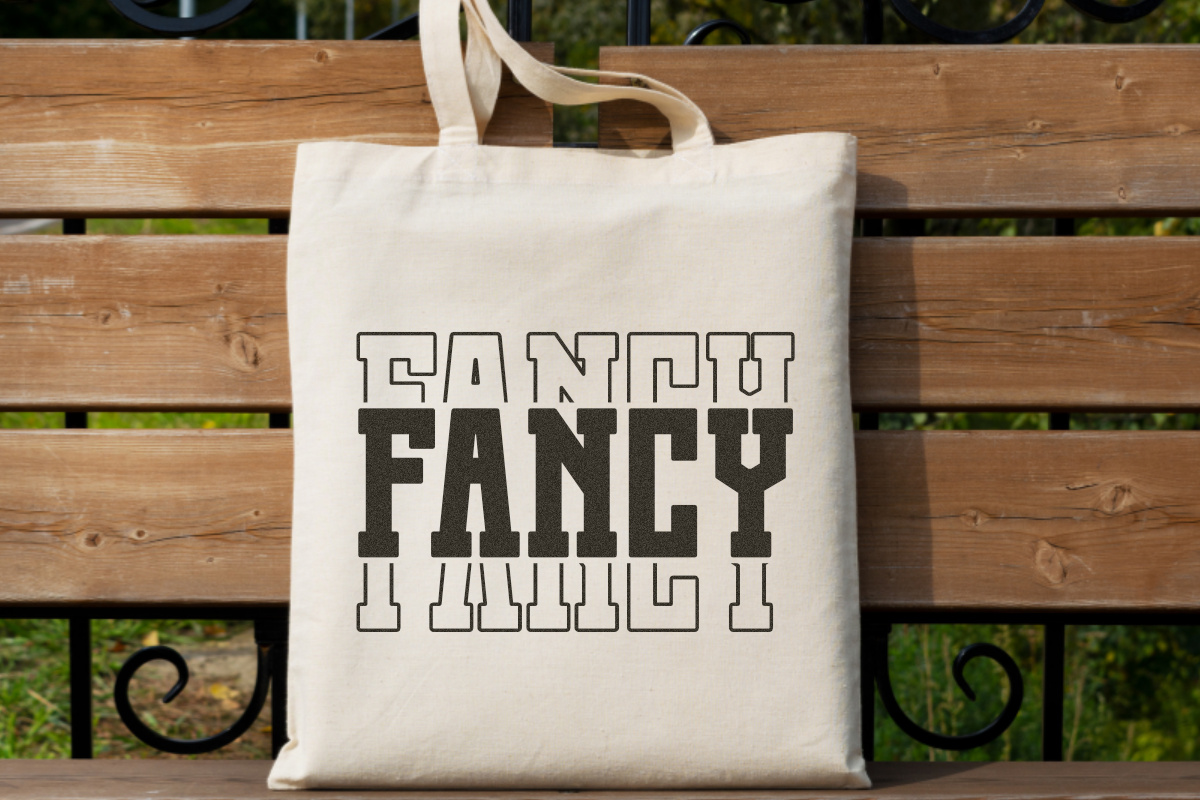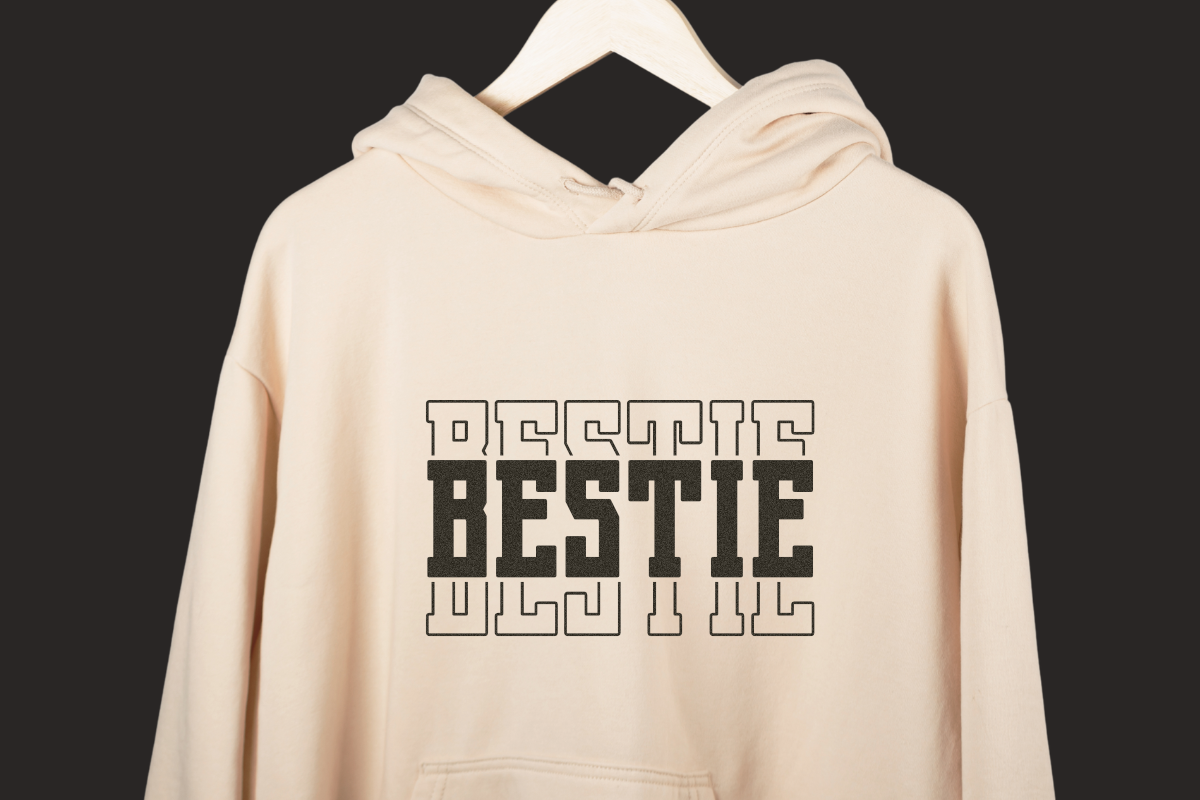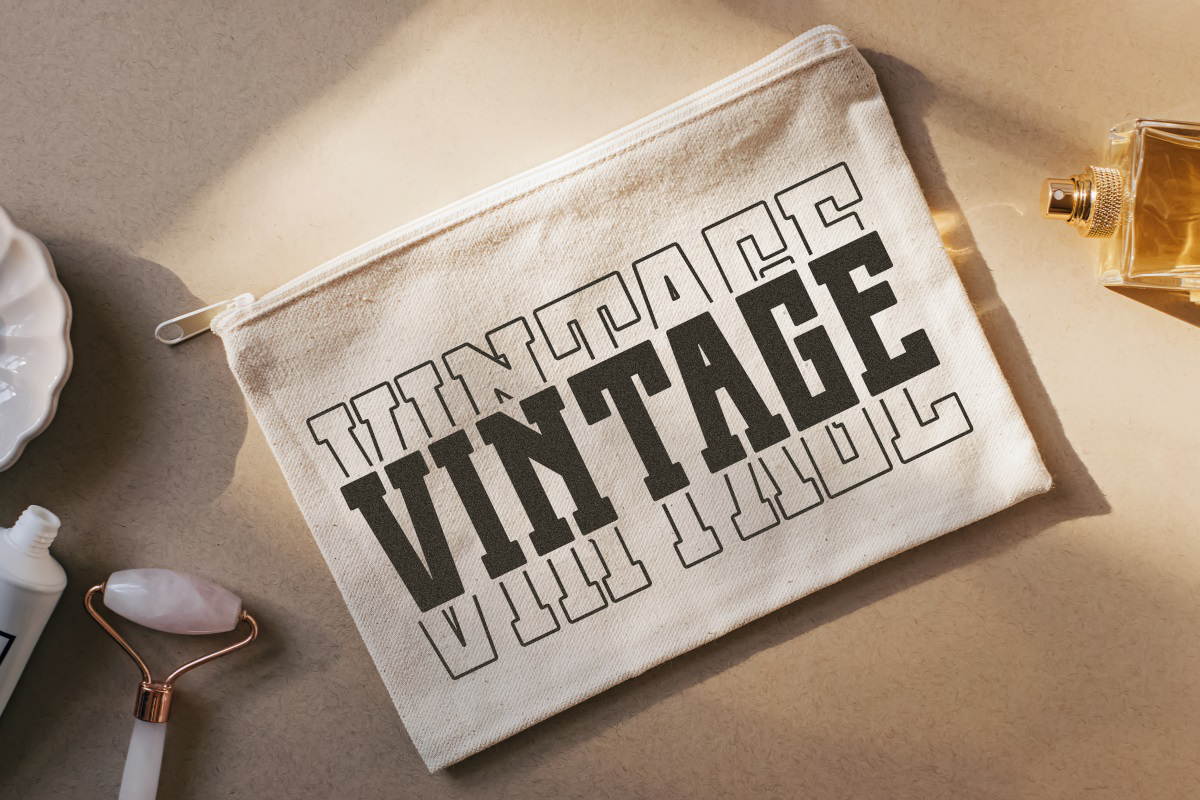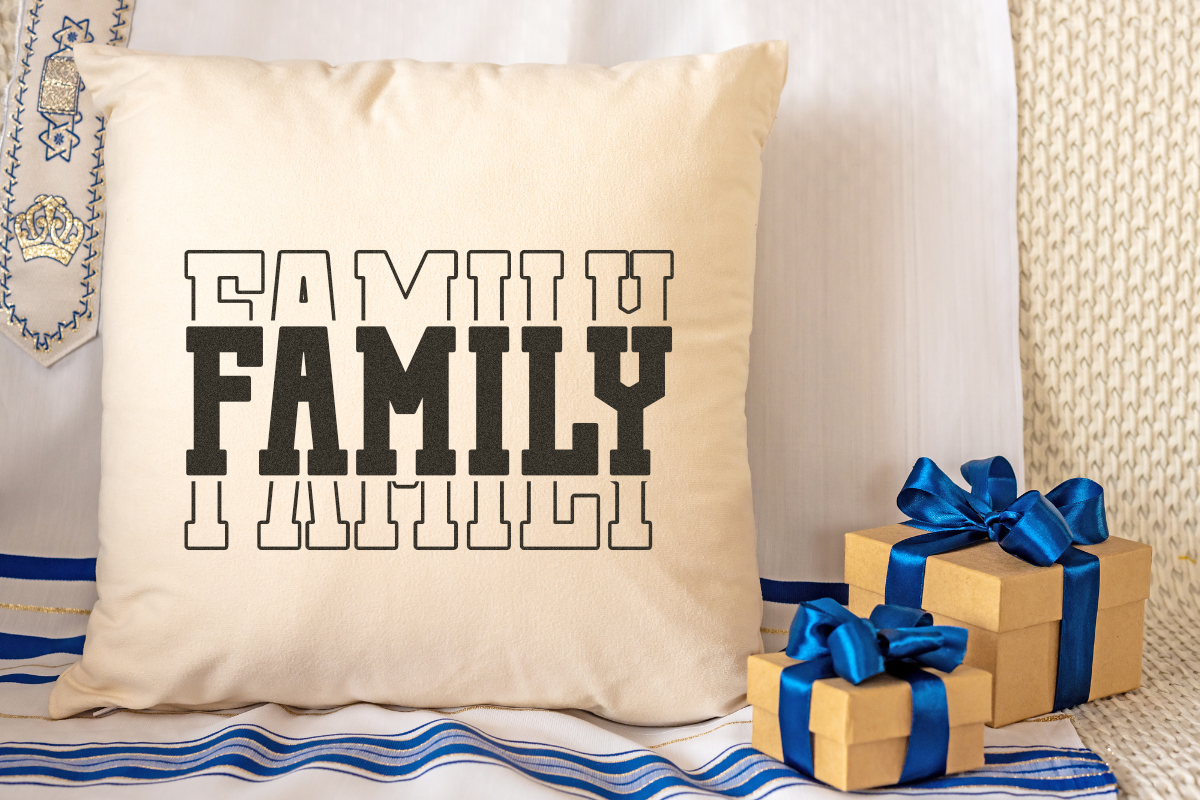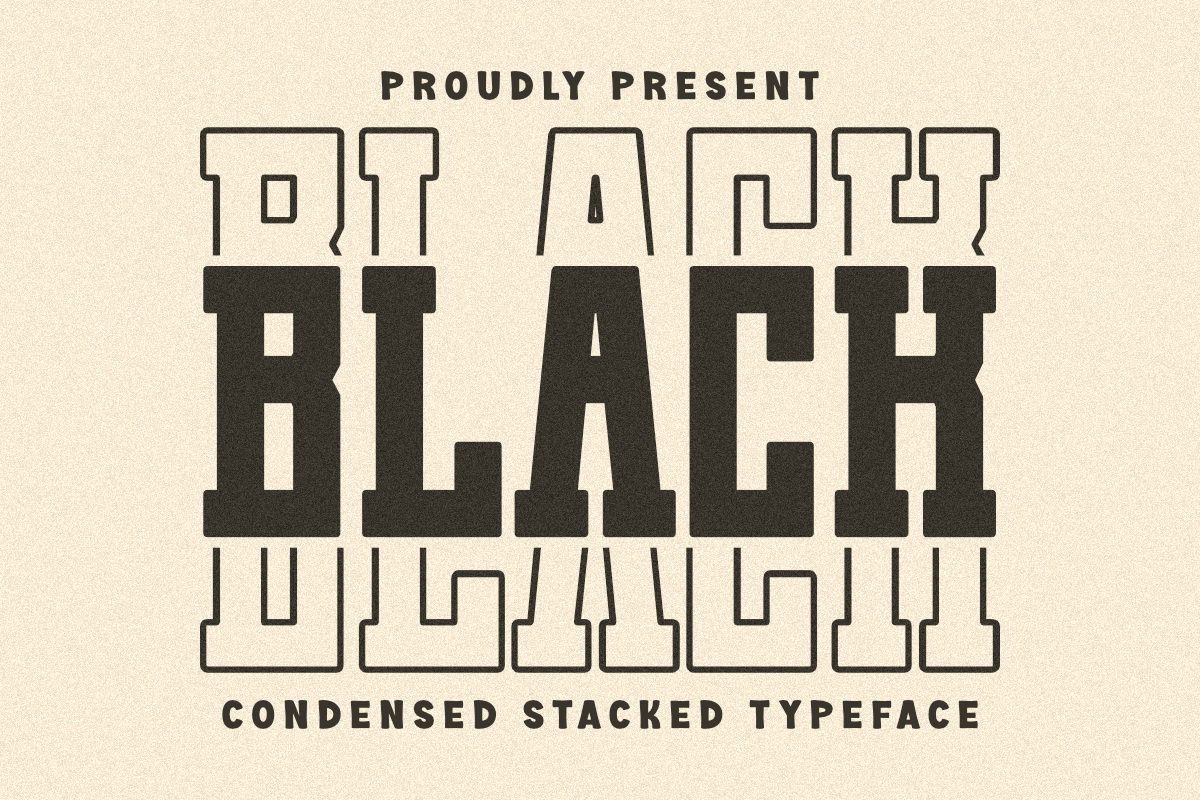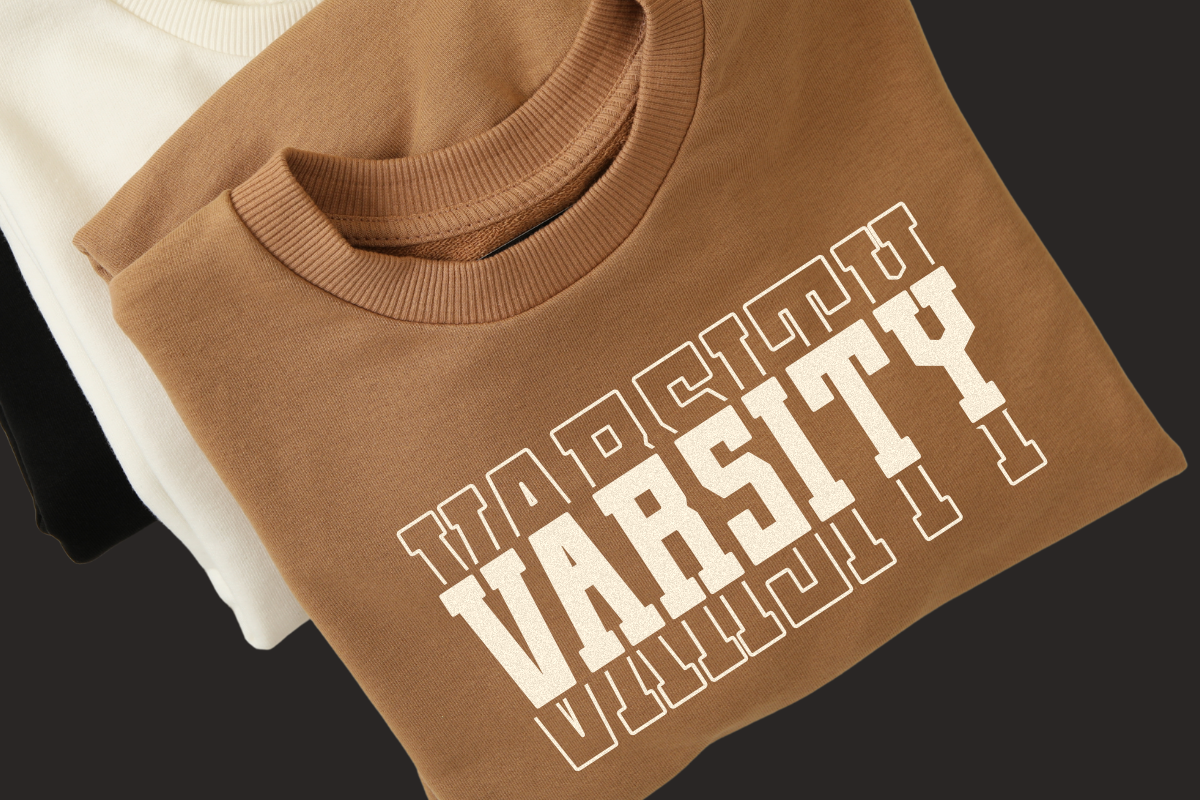
Black - Condensed Stacked Font
Black Stacked is a bold condensed slab display font featuring a unique stacked letter design that blends vintage charm with modern structure. Its strong geometric shapes and narrow forms make it perfect for logos, posters, apparel, and bold headlines. This font brings a powerful retro aesthetic with a clean, contemporary twist — ideal for branding, sports designs, and packaging that need confident and eye-catching typography.